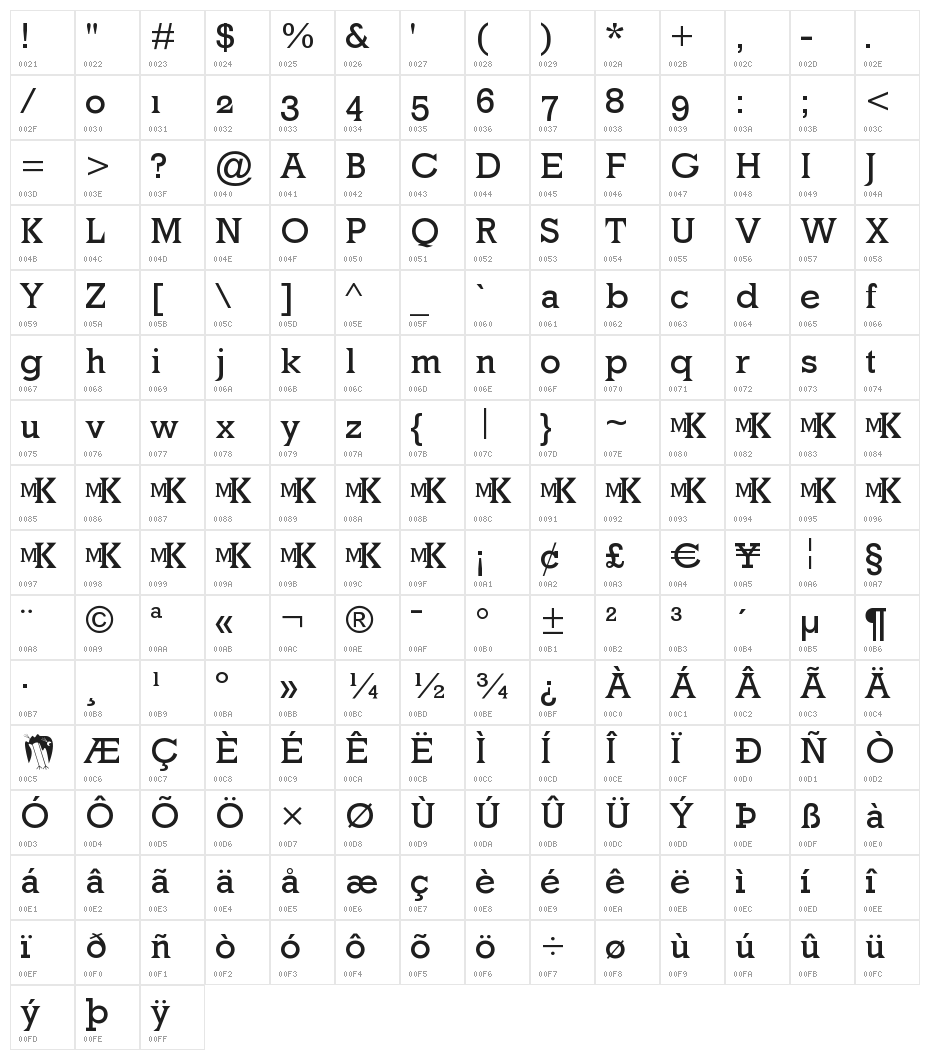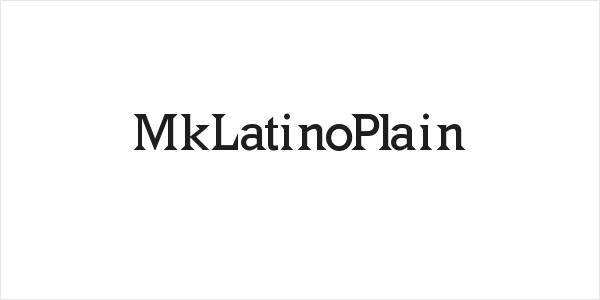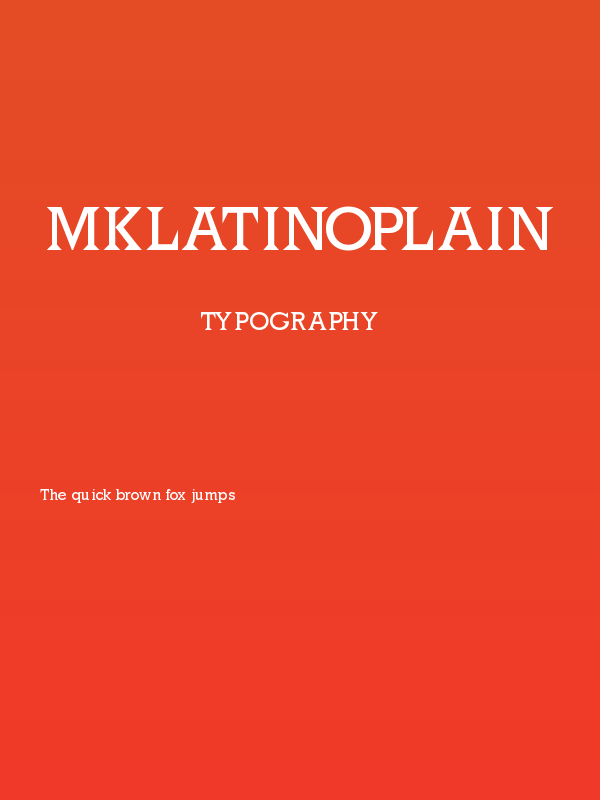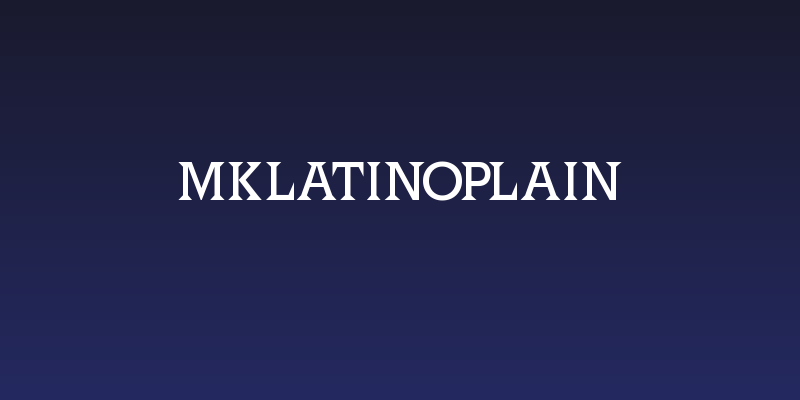
MkLatinoPlain Font
MkLatinoPlain Description
This font features a classic serif style with strong, bold strokes and pronounced serifs. The uppercase letters are characterized by their traditional and authoritative appearance, while the lowercase letters maintain a consistent and readable form. The numerals are clear and distinct, ensuring legibility. Special characters are well-defined, complementing the overall design. The font's structure is balanced, making it suitable for a variety of formal and professional applications. Its timeless elegance is evident in the precise and sharp edges of each character, providing a sense of sophistication.
| Proposed Projects | Ideal for use in editorial design, book covers, formal invitations, and branding for luxury products. |